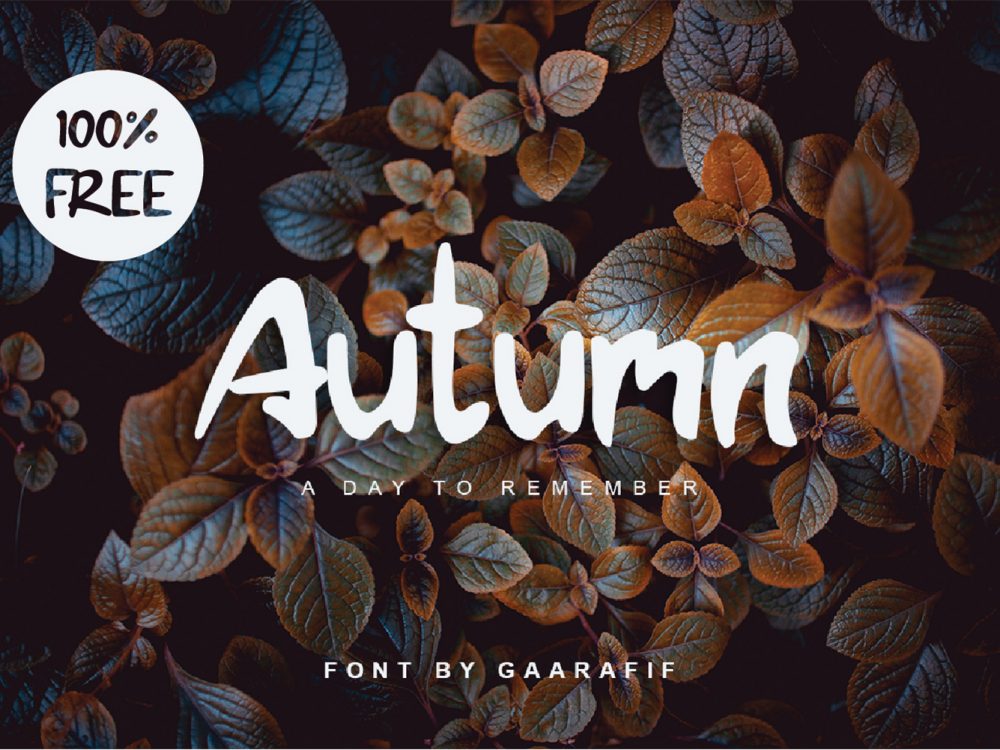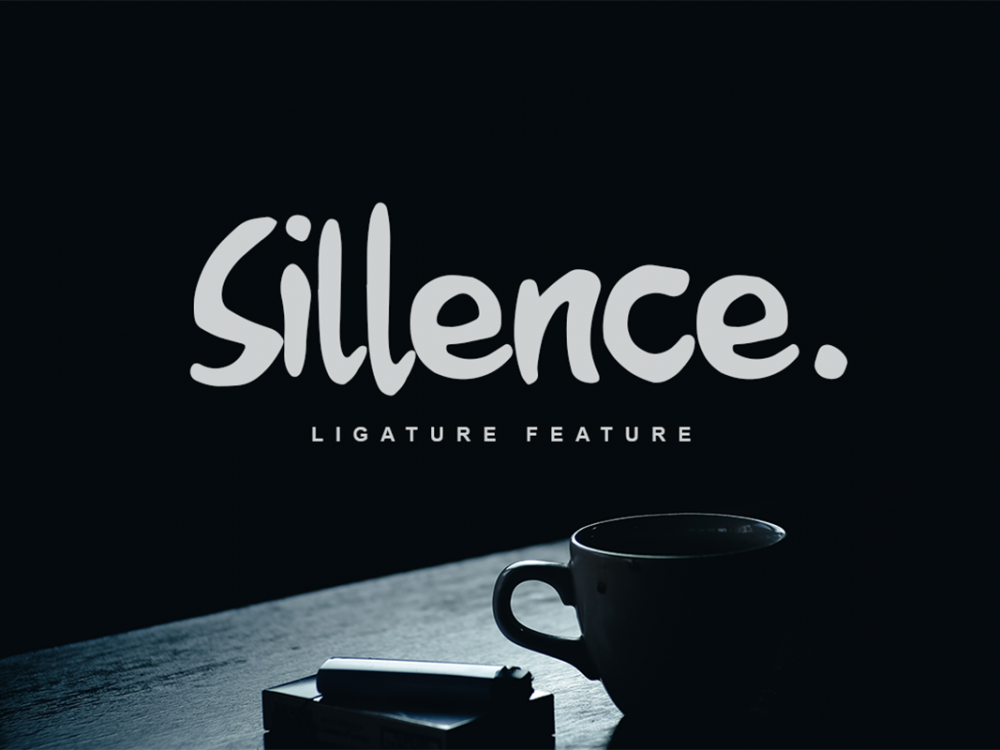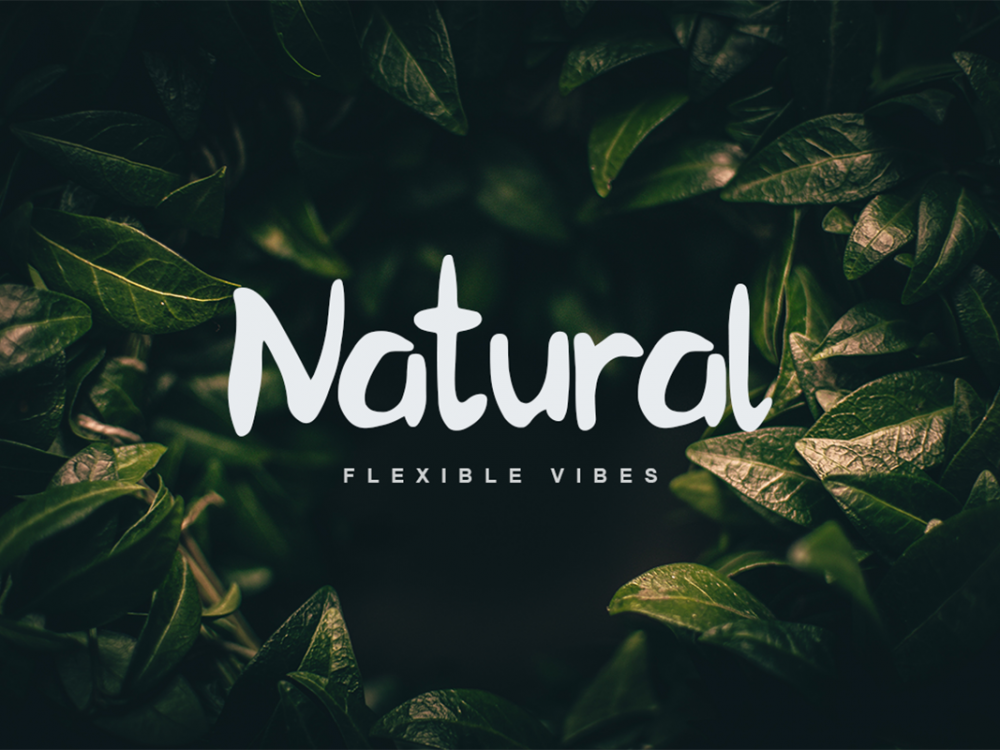
Autumn Free Display Font
Autumn Free Display Font is an interesting completely free simple handwritten font that will work very well for various design projects. Use this font to create branding projects, posters, wedding cards and invitations, flares, prints and more.